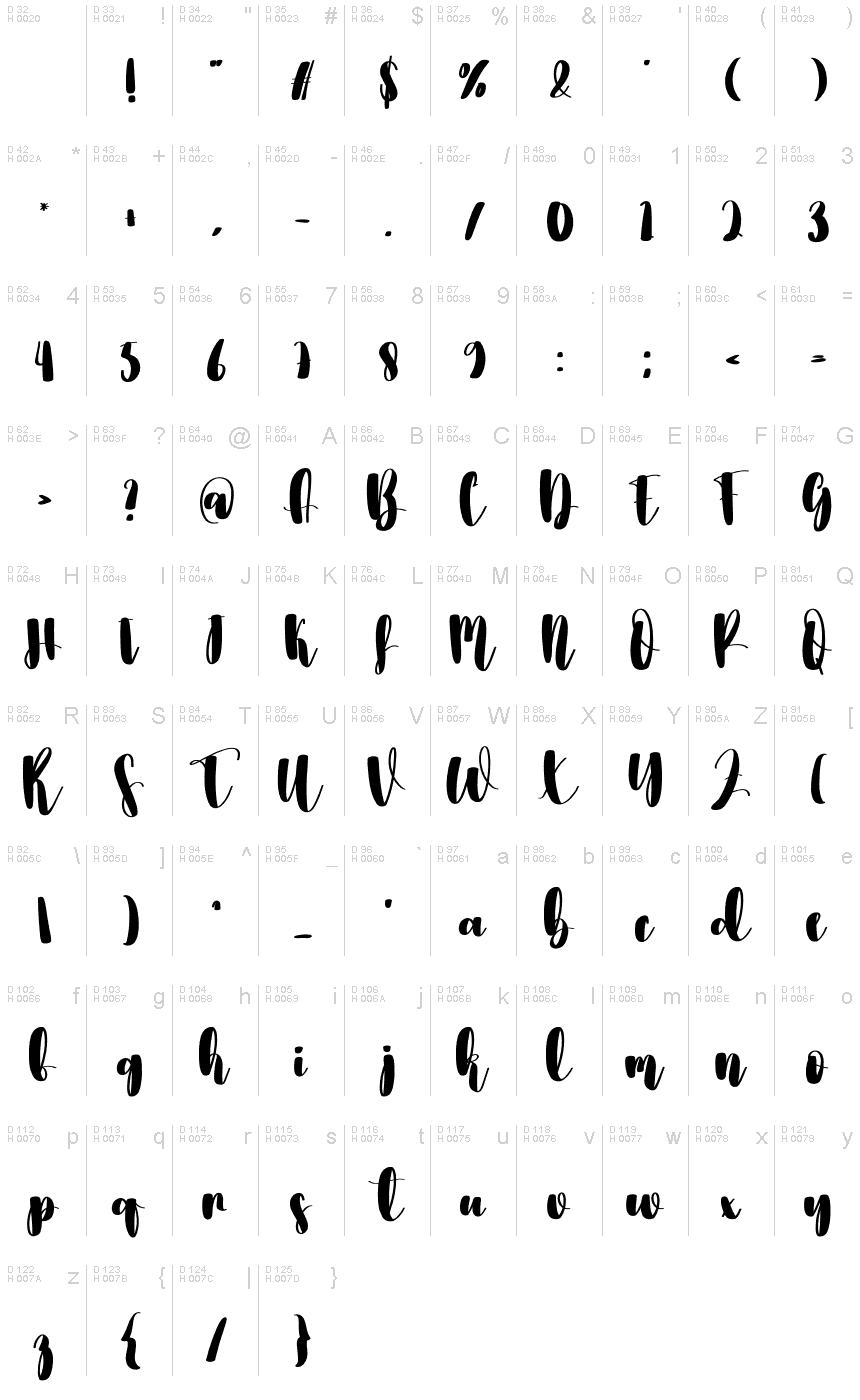
Christmas
Christmas font is a creative and modern script font designed by scratchones.
The latest style letters are perfect for wall displays, wedding invitations, social media post logos, advertisements, product packaging, product designs, labels, photography, watermarks, invitations, stationery, and any project that requires taste handwriting.